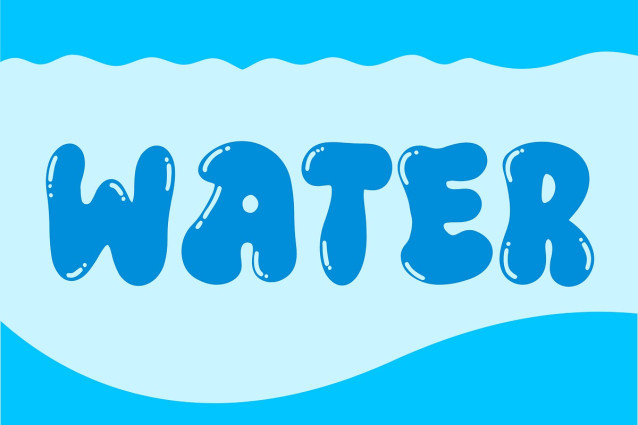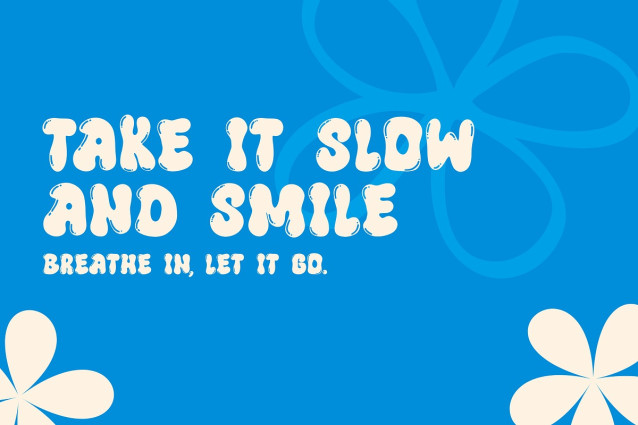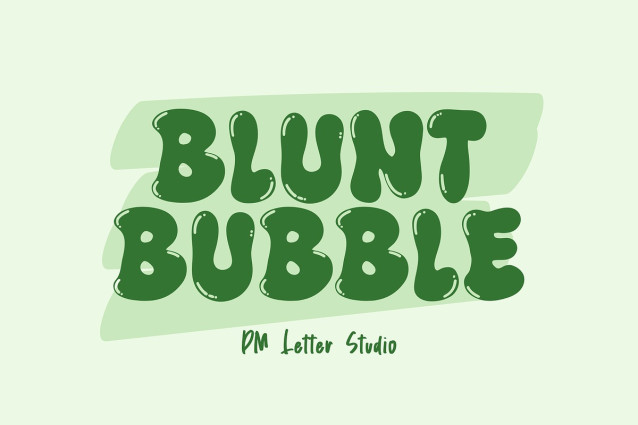
Blunt Bubble Font
Blunt Bubble Font is a bold, rounded display font built to make designs feel fun, loud, and impossible to ignore. The letterforms are thick and soft with a blunt edge that gives them a confident, cartoon-like personality. Each character feels inflated and friendly, like bold lettering shaped from smooth bubble foam. It is perfect for projects that need warmth, humor, and strong visual impact. Use Blunt Bubble for kids branding, snack packaging, sticker designs, YouTube thumbnails, social media graphics, birthday invitations, and playful merchandise. As a result, your typography feels cheerful, expressive, and instantly eye-catching.
Fast layouts with the Blunt Bubble Font
Start with short, bold words to maximize impact. After that, add bright solid colors or soft gradients to enhance the inflated bubble look. Because the shapes are thick and rounded, avoid overly busy backgrounds for better clarity. In addition, pair it with a simple sans serif for subtext and supporting details. Finally, try color combinations like pastel pink and cream, sky blue and white, lemon yellow and orange, or mint green and coral for a cohesive, playful vibe.